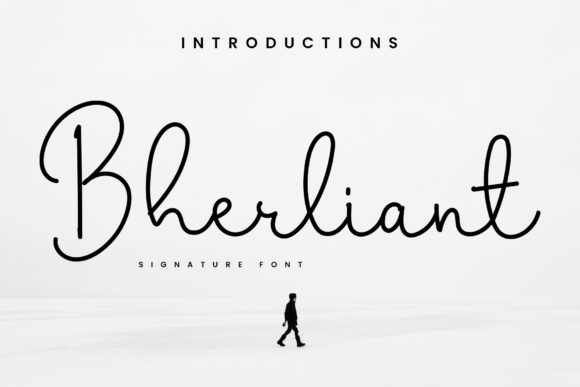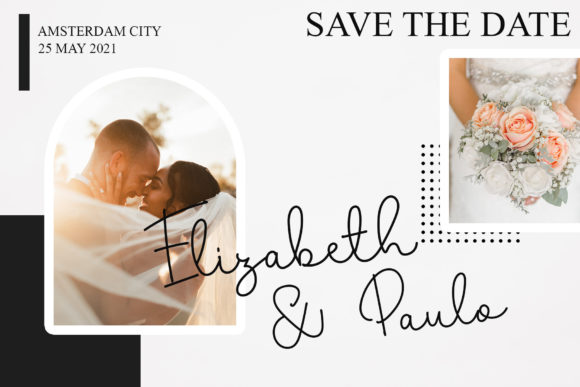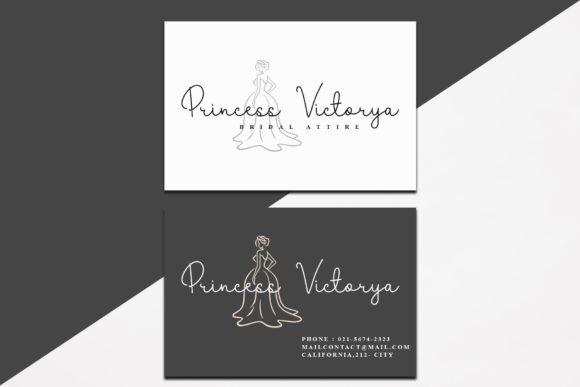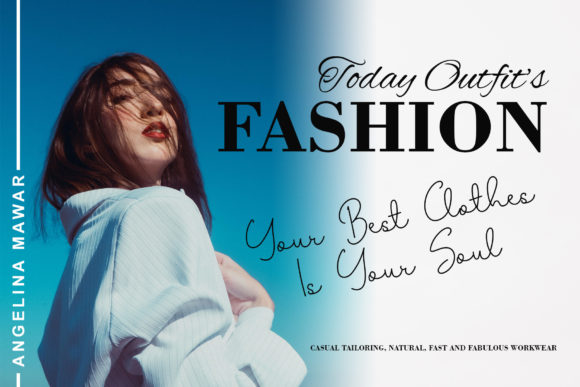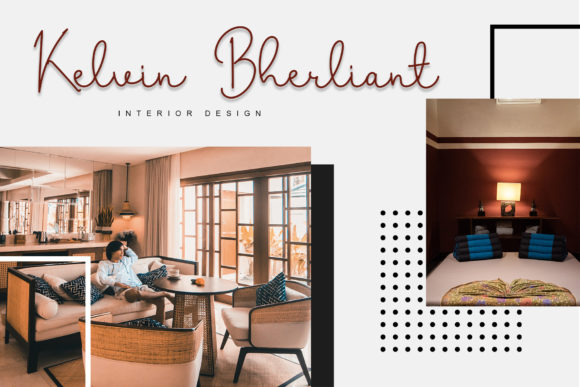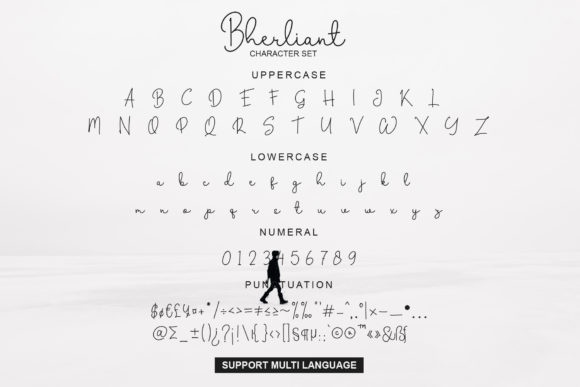
About Bherliant Font
Bherliant is a stylish and delicate script font. It has a clean, thin and smooth vibe and it will be a hit for any design that you want to add it to.